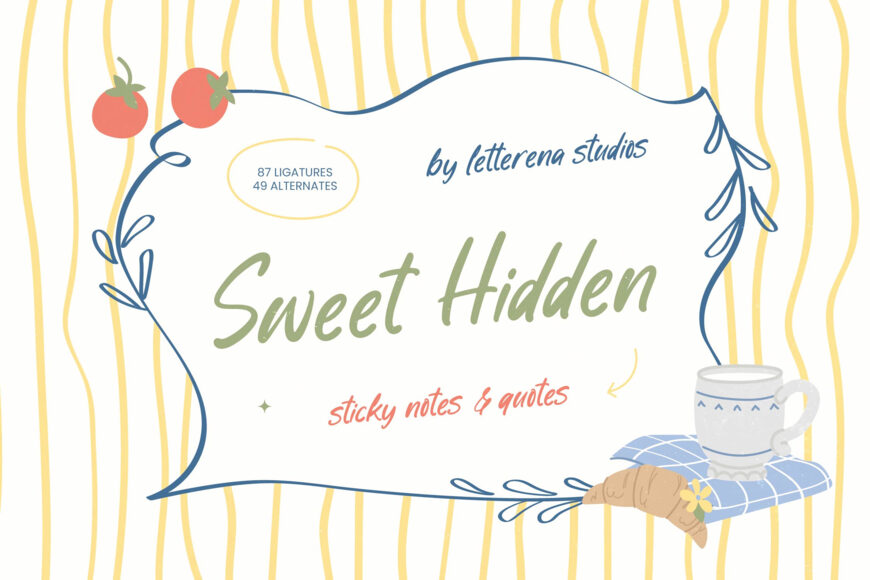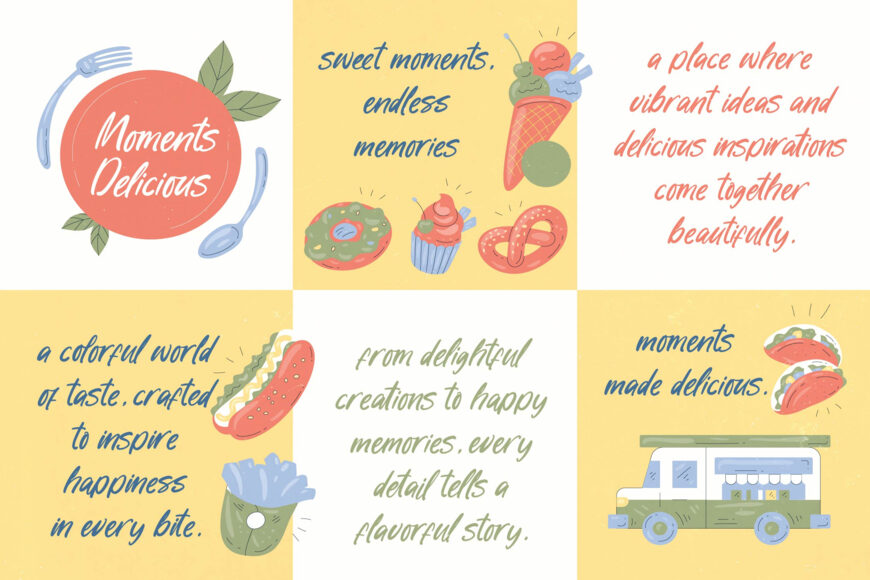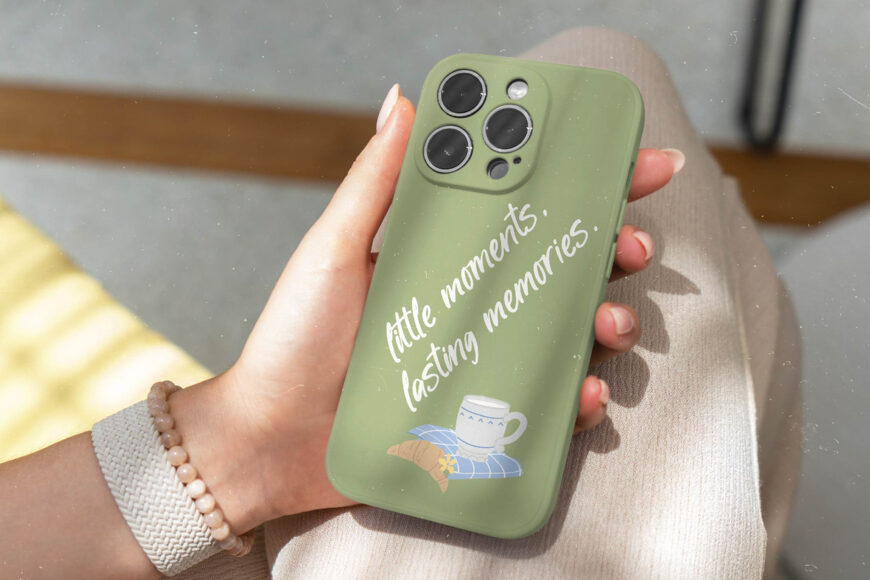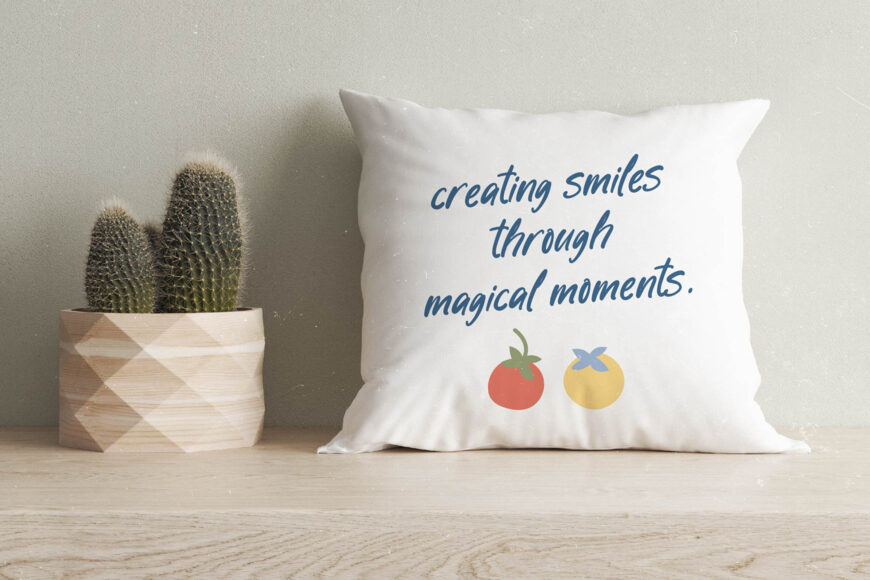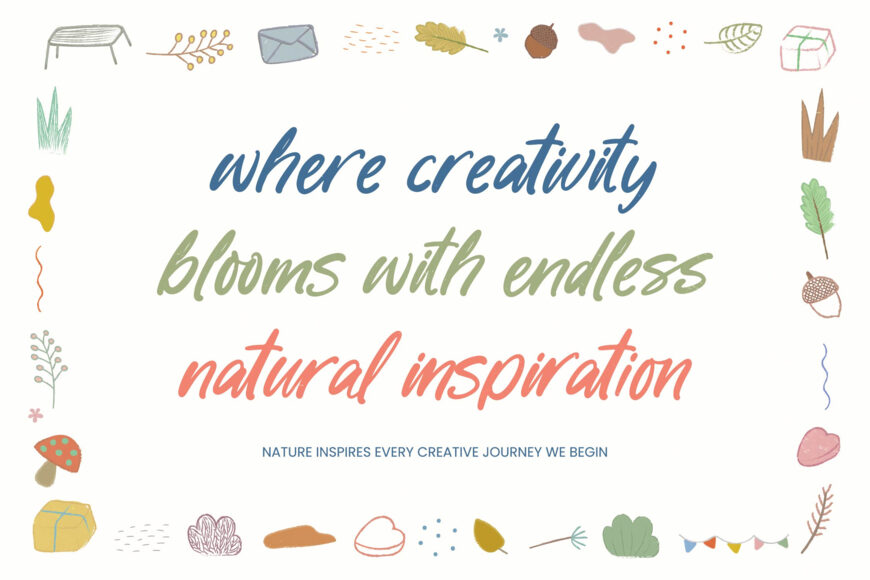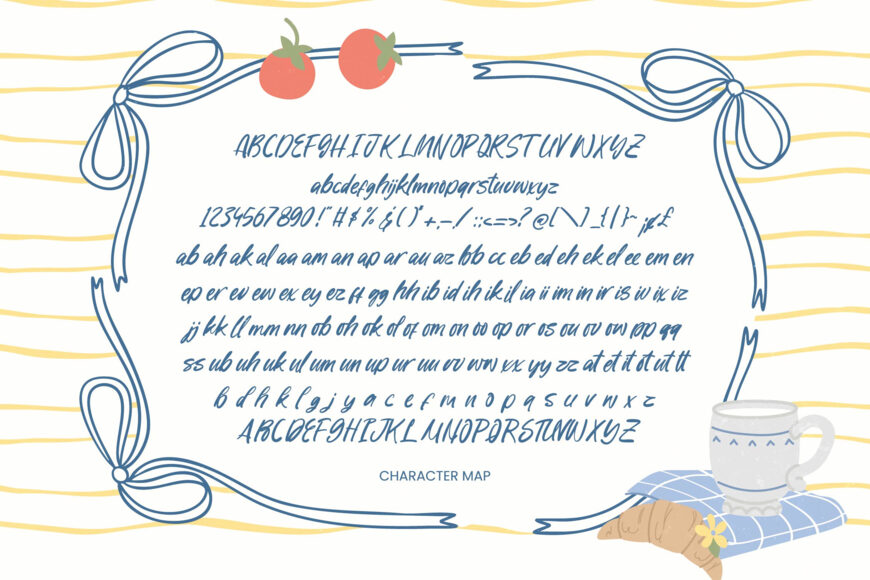
Add a personal touch to your designs with a handwritten font that exudes warmth and elegance. This script features organic lines and textured strokes, giving it a unique, hand-drawn feel.
With numerous ligatures and alternates, it allows for a customized look that mimics real handwriting. Perfect for projects requiring a cozy vibe, it’s also versatile and supports multiple languages, making it ideal for global branding and international projects.